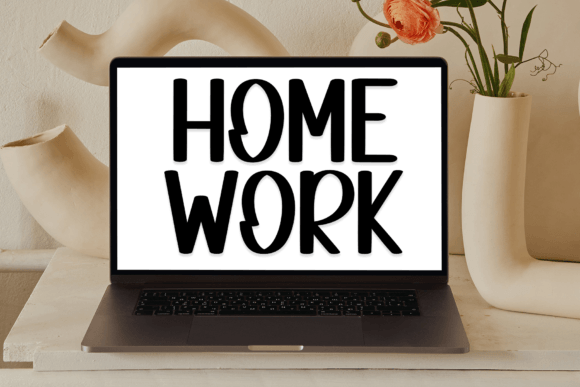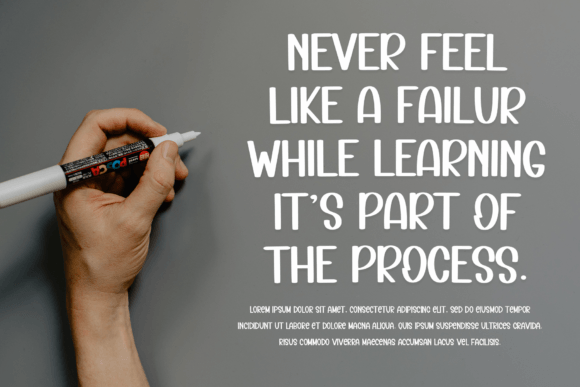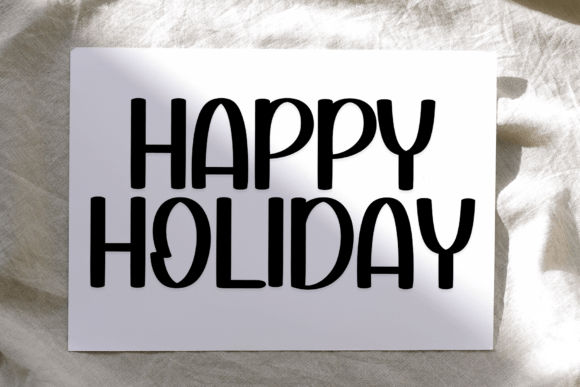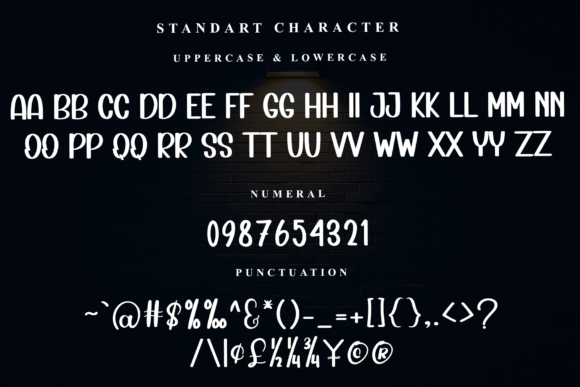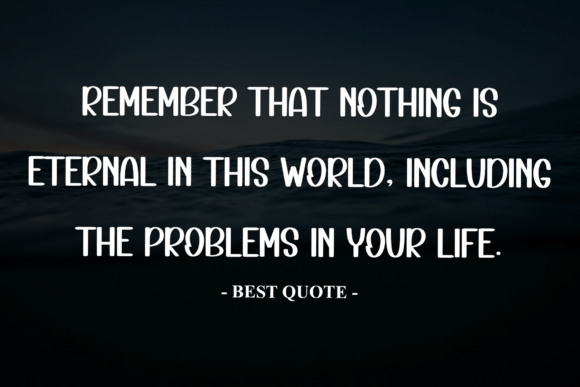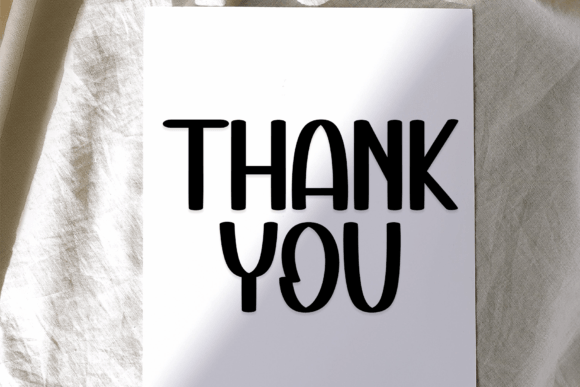
The Perfect Font for a Handmade Touch
As a designer, there’s nothing quite like the thrill of brainstorming a new project and suddenly, the perfect font pops into your mind. For me, it was a sunny afternoon spent browsing through a quirky craft store, surrounded by colorful stationery and whimsical trinkets. That’s when I stumbled upon the Bunny Beach Font – a charming handwritten font that instantly captured my heart.
This delightful font is perfect for adding a touch of warmth and personality to any project. With its playful yet legible style, Bunny Beach Font is ideal for greeting cards, invitations, and branding. Its natural strokes and irregularities evoke a sense of handmade authenticity, making it a valuable asset for designers looking to add a unique touch to their work.
- Unique Characteristics: Bunny Beach Font features a playful, handwritten style with a mix of rounded and pointed letterforms, making it ideal for creating whimsical and child-friendly designs.
Bunny Beach Font Review
Overall, I’m quite impressed with the Bunny Beach Font. It has a playful, whimsical vibe that’s perfect for beach-themed designs, children’s books, or any project that needs a touch of fun and innocence.
- Unique and recognizable style: The Bunny Beach Font has a distinct personality that sets it apart from more generic fonts.
- Highly legible: The font is clear and easy to read, making it suitable for body text or headings.
- Customizable: The font comes in a range of weights and styles, allowing you to tailor it to your specific design needs.
- Limited character set: While the font includes a decent number of characters, it’s not as comprehensive as some other fonts.
- May not be suitable for formal designs: The Bunny Beach Font is quite playful and may not be the best choice for formal or professional projects.
Overall, I’d give the Bunny Beach Font 4 out of 5 stars. It’s a great choice for designers looking for a fun, unique font that’s perfect for beach-themed or children’s designs. However, it may not be the best fit for more formal or complex projects.
Tips for Getting the Most Out of the Bunny Beach Font
Use the Bunny Beach font for designs that require a playful and whimsical touch.
Pair the font with bright and pastel colors to create a cohesive and eye-catching design.
Experiment with different font sizes and styles to add visual interest to your design.
The Bunny Beach font is ideal for:
Children’s party invitations and decorations
Summer-themed marketing materials
Whimsical social media graphics